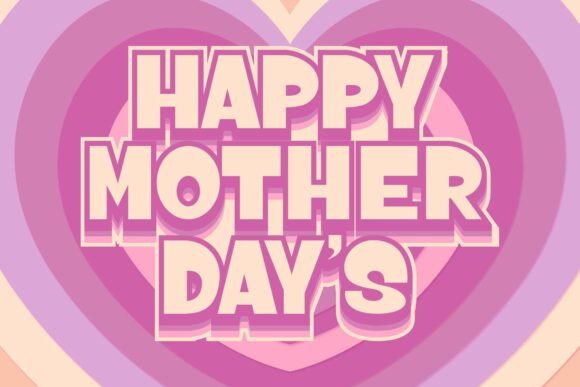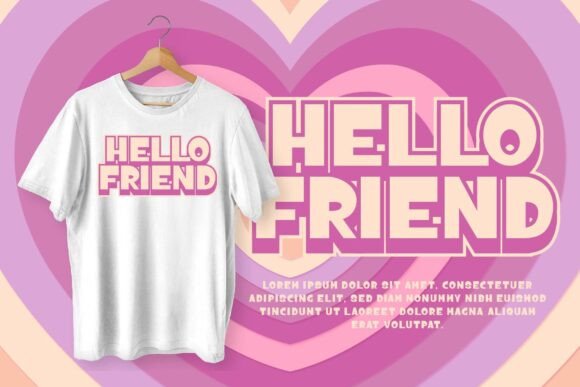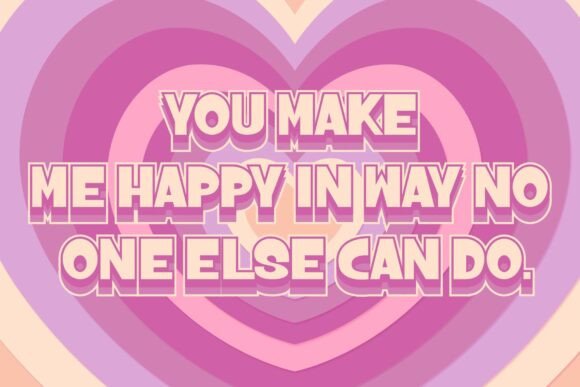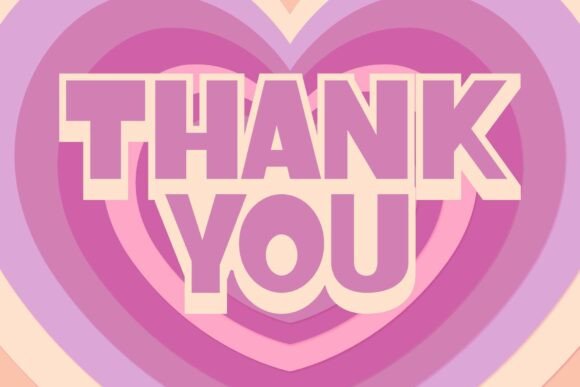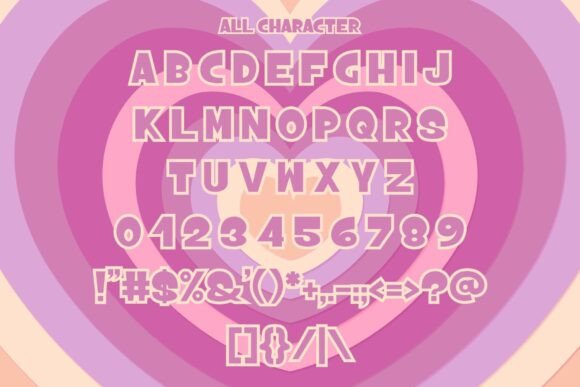
Introduction to Kids Groovy Font
Kids Groovy is a versatile, stylish, groovy, and playful retro display font perfect for a wide spectrum of applications such as greeting cards, headlines, and many more.
Add it to any of your creative projects, and it will give them a romantic and exquisite feel .
Key Features of Kids Groovy Font